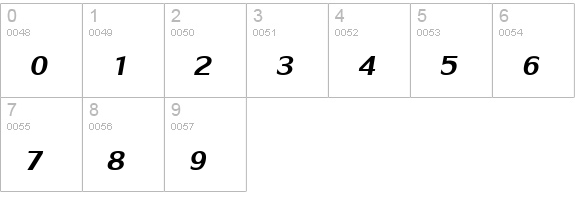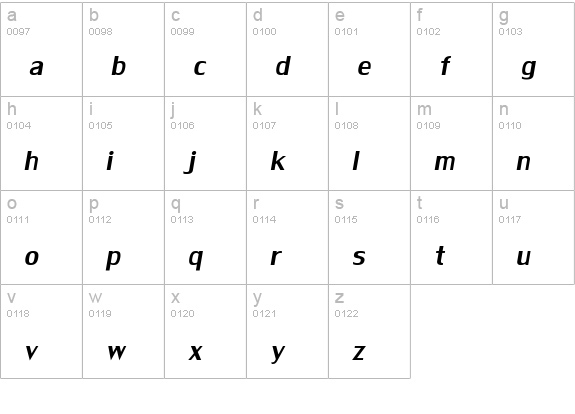
LilyUPC Italic Font Details
LilyUPC Italic is a distinctive, italic variant in the LilyUPC typeface family \xE2\x80\x94 well suited to design and typography projects.
LilyUPC Italic font is a stylish and elegant typeface that exudes sophistication and charm. Its slanted design adds a touch of flair to any project, making it perfect for adding a modern twist to your designs. The flowing curves and unique letterforms of LilyUPC Italic make it a versatile choice for a wide range of applications, from branding to editorial design. And the best part? LilyUPC Italic font is completely free to download at FontsMarket.com! Whether you're a professional designer or a hobbyist looking to elevate your creative projects, this font is a must-have addition to your toolkit. Don't miss out on the opportunity to enhance your work with the beauty and elegance of LilyUPC Italic font – download it today and bring your designs to life!